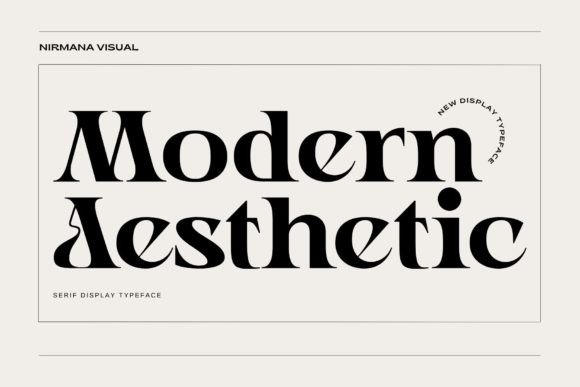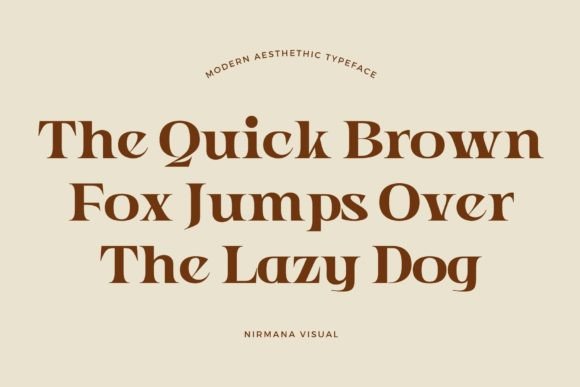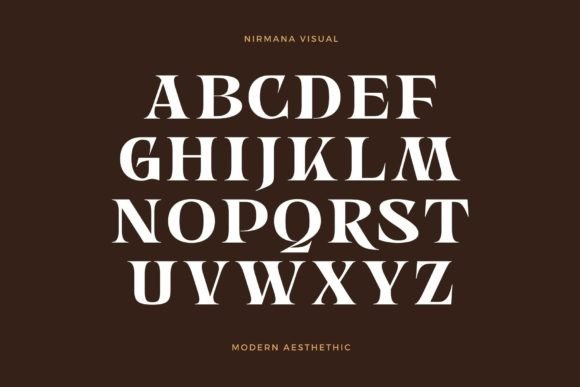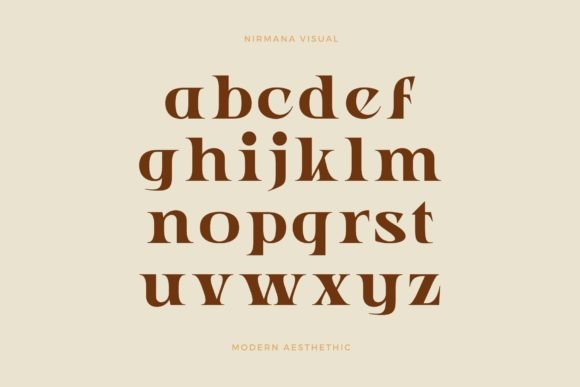
Modern Aesthetic Font
About the Modern Aesthetic Font
Crafted with precision, the Modern Aesthetic Font is ready to bring your ideas to life. Modern Aesthetic Inspired by Renaissance Design Era. Vintage Retro offers beautiful typographic harmony for a diversity of design projects, including logos & branding, social media posts, advertisements & product designs. This font is PUA encoded which means you can access all glyphs and swashes effortlessly!
Its strong yet refined forms make it ideal for headlines, logos, and short-form text in branding materials and advertising. The font’s inherent elegance also lends itself well to packaging design, particularly for high-end or luxury products. However, its decorative nature makes it less suitable for body text or UI elements where readability is paramount. Avoid using it for long paragraphs or situations demanding high legibility at small sizes.
Modern Aesthetic’s vintage-inspired character pairs well with both contemporary sans-serif fonts like Montserrat for a balanced contrast, or a classic serif like Garamond for a more traditional feel. For a touch of playfulness, a handwritten script font could also complement its ornate details. Consider pairing it with a geometric sans-serif for a modern, sophisticated look.
The overall personality of Modern Aesthetic is sophisticated and bold, conveying a sense of refined modernity with historical undertones. It’s best suited for brands and projects seeking to project an image of quality, heritage, or artistic sensibility.
Modern Aesthetic Font Usage Examples
Modern Aesthetic Font Example